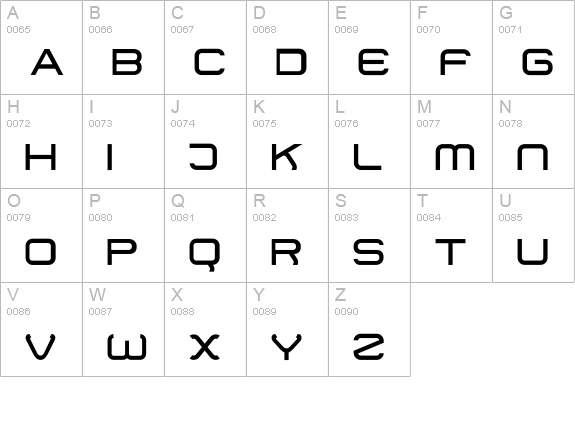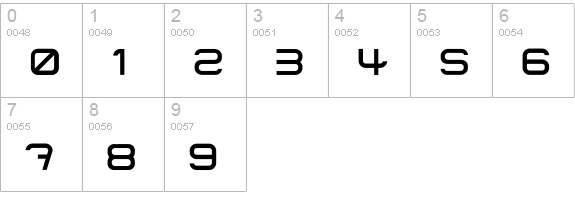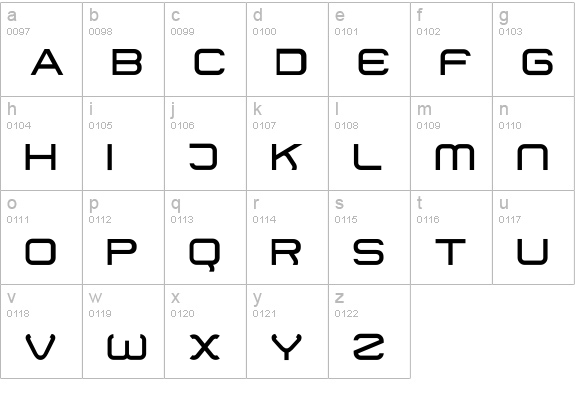
01 DigitMono Font Details
Introducing 01 DigitMono font, a sleek and modern typeface that exudes simplicity and sophistication. This versatile font is perfect for a wide range of design projects, from branding to editorial design. With its clean lines and minimalist aesthetic, 01 DigitMono font adds a touch of elegance to any project. What's even better is that this stunning font is available for free download at FontsMarket.com. Whether you're a seasoned designer or just starting out, you can easily access this beautiful font and enhance your creative projects. Don't miss out on the opportunity to elevate your designs with the timeless charm of 01 DigitMono font. Download it now and let your creativity shine!